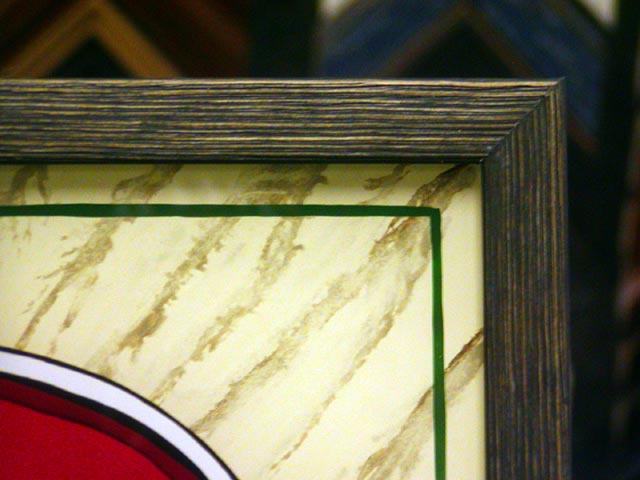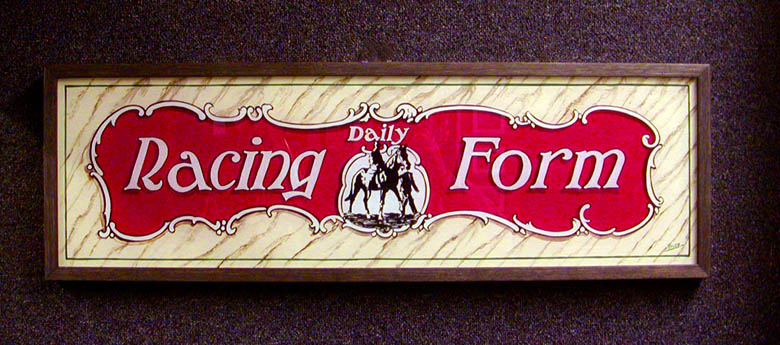
A little free hand fun
Here is a piece I just framed up.
It's 37"x12" 1/4" glass... center panel is bright red outside is ivory and marbled. Some asphaltum shading here and there.
Don't know why you wasted your time making and framing that thing...when you could of bought one just like it on eBay.
...and the best thing about it is...it's signed by somebody named "Tyler". Hey, they might be related to you, Check it out.
I'm akin to that William Blake fellas philosophy. I believe he said "I paint signs, I don't buy 'em.